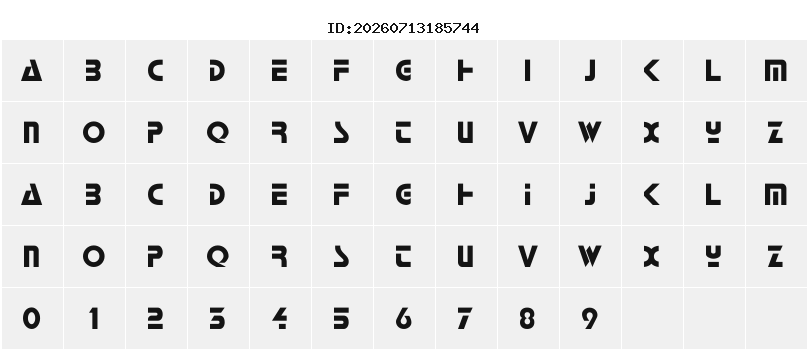
Babylon5_Station Preview
• Font Name: Babylon5_Station
• Full Font Name: Babylon5_Station
• Copyright: Created by: Michael Lee & Josh Dixon 10-5-98
About Babylon5_Station.ttf
Babylon5_Station.ttf is a modern, elegant sans-serif font designed for ultimate readability and visual harmony. Perfect for branding, headlines, web design, and print materials.